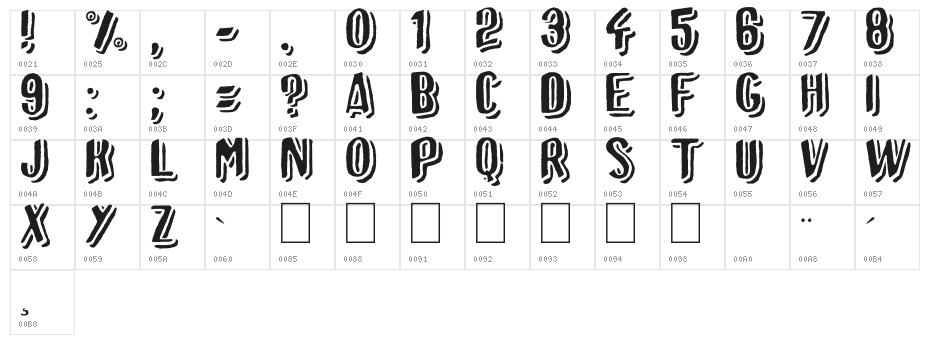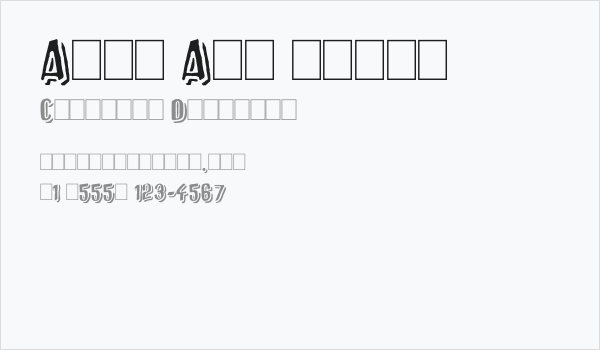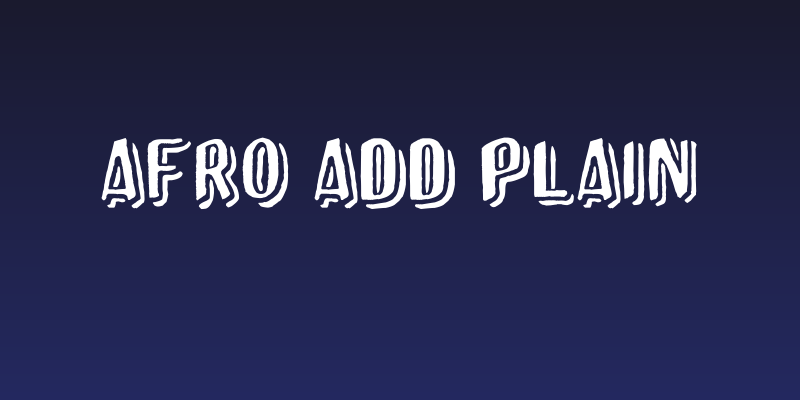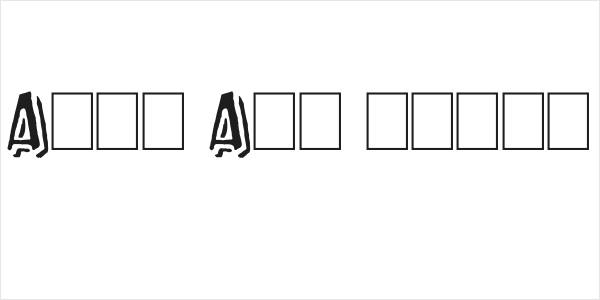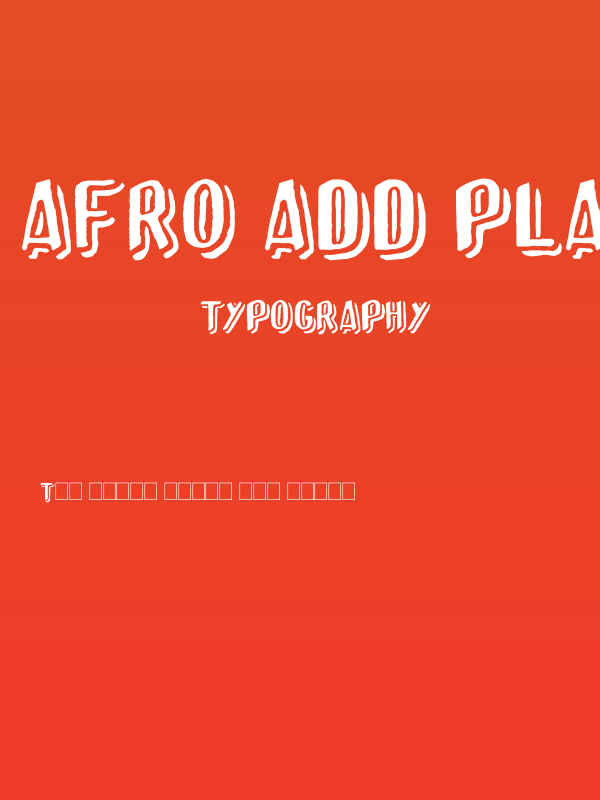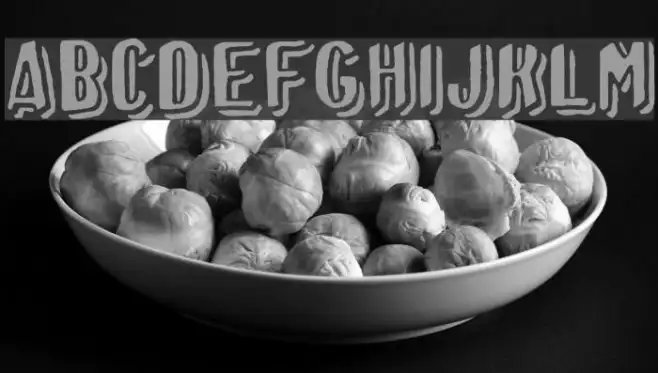
Afro Add plain Font
Afro Add plain Description
This font features a bold and dynamic style with a hand-drawn appearance. The characters are thick and have a slightly irregular, brush-like texture that gives them a lively and energetic feel. The uppercase and lowercase letters maintain a consistent weight, while the numbers and special characters follow the same stylistic approach. The font's design is reminiscent of street art or graffiti, making it ideal for projects that require a bold and expressive typeface. The overall look is both playful and impactful, suitable for capturing attention in various creative contexts.
| Proposed Projects | Ideal for posters, album covers, street art designs, and branding projects that require a bold, expressive typeface. |